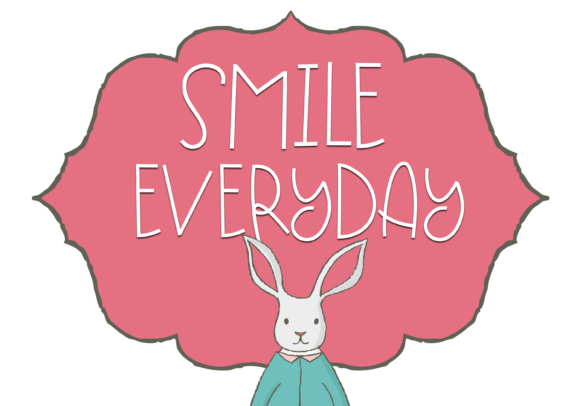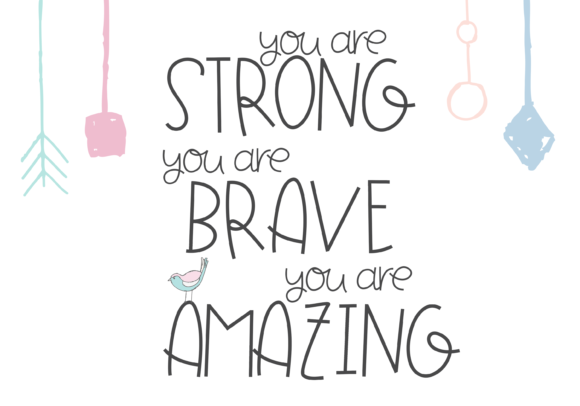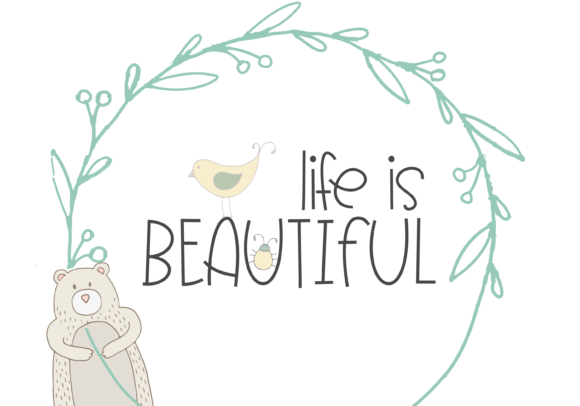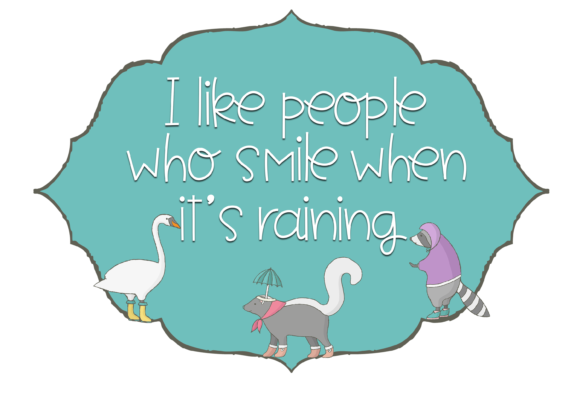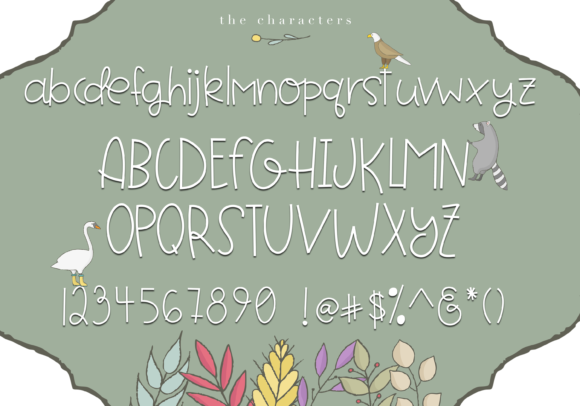
Introduction to Forest Friends Font
Have you ever stumbled upon the perfect design element that brings your creative project to life? For designers, finding that one special font can be the key to unlocking a unique and captivating visual identity. For me, it was the moment I discovered the Forest Friends Font – a charming, handwritten script that immediately caught my eye and sparked a wave of inspiration.
With its transparent background and high-quality design, this font is a valuable resource for any creative endeavor. Whether you’re crafting a blog post, designing a logo, or creating an invitation, Forest Friends Font adds a touch of whimsy and personality to your work. And the best part? It’s available for a free download, making it an accessible and versatile design tool for designers of all levels.
Key Features of Forest Friends Font
- High-quality design resource perfect for creative projects, such as logos, branding, and advertisements.
- Features a transparent background, allowing for seamless integration with any design element.
- Comes in 6 different font styles, each with its unique characteristics and flair.
- Includes a range of glyphs, ensuring that you have the necessary symbols and characters for your project.
Honest Review: Forest Friends Font
As a designer, I was excited to try out the Forest Friends Font, a free download that promises to bring a touch of whimsy to my creative projects. Upon closer inspection, I found that the font does indeed deliver on its promise. ✨ The playful, hand-drawn style is reminiscent of a forest floor, with intricate details that add depth and character to any design.
The font is incredibly versatile, making it perfect for a wide range of design projects. I was able to use it for a children’s book cover, a logo for a outdoor apparel brand, and even a social media graphic for a environmental organization.
- High-quality design that is perfect for creative projects
- Playful, hand-drawn style that adds character to designs
- Transparent background, making it easy to customize
- ⚠️ Limited font styles, with only a few weights available
- ⚠️ Not ideal for formal or corporate designs, as it may come across as too playful
Overall, I’m impressed with the Forest Friends Font and would definitely recommend it to designers looking for a high-quality, free design resource. While it may have some limitations, its unique style and versatility make it a great addition to any design toolkit.
Forest Friends Font is a free, high-quality design resource perfect for creative projects that require a playful and whimsical touch. This font features a transparent background, making it easy to layer and customize in your design.
For the best results, use Forest Friends Font in conjunction with other high-quality design elements, such as illustrations and graphics. Experiment with different font sizes and layer blending to achieve a unique and eye-catching design.
Forest Friends Font is perfect for a variety of creative projects, including children’s book illustrations, nursery decor, and environmental marketing materials. Its playful and whimsical design makes it an ideal choice for projects that require a touch of magic and wonder.